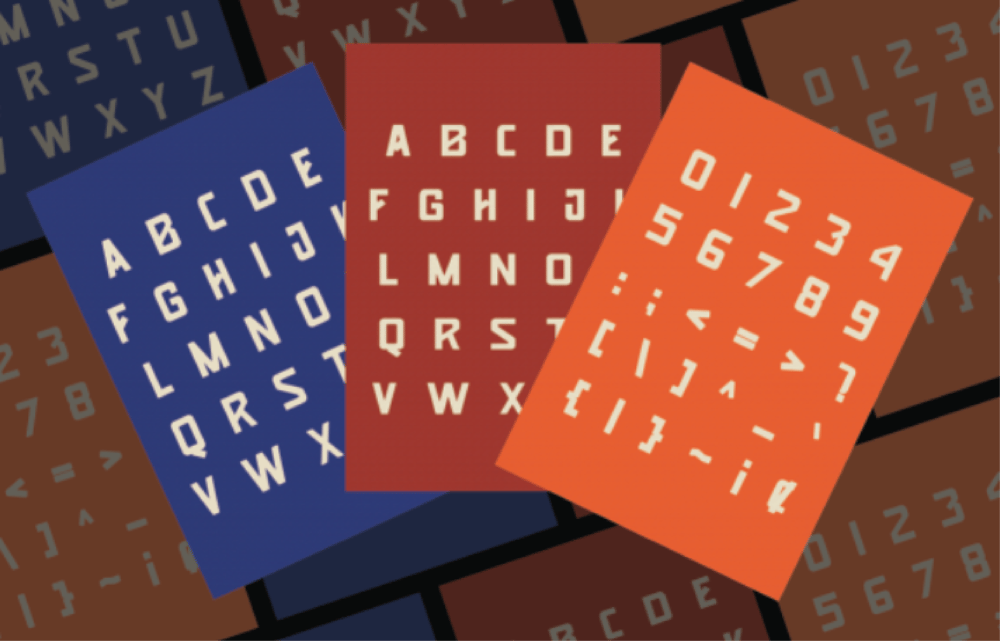
Blesteru Font Family was designed by Agus Prima and published by Valiantbrotha. Blesteru contains 1 styles and family package options. Blesteru Font is a bold and dynamic sans-serif typeface that brings the spirit of retro display fonts into the modern era. With clean lines, sharp angles, and a powerful presence, Blasteru strikes the perfect balance between vintage charm and contemporary flair. Its distinctive letterforms make it ideal for headlines, posters, logos, and any design where attention is key. We strongly suggest using software that supports OpenType features and a Glyphs panel, such as various Adobe applications or Corel Draw, to fully view and access all Glyph variations.